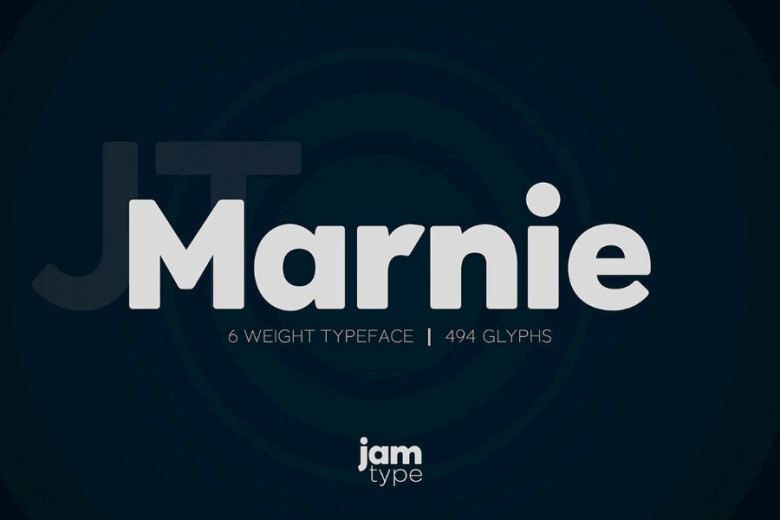
Marnie Font Family
Introducing Marnie Font Family! Marnie Font designed by Jam Type Design. The design is influenced by the geometric style sans serif faces which were popular during the 1920s and 30s. The JT Marnie font family is well suited for headlines and small blocks of text, particularly in advertising and packaging.